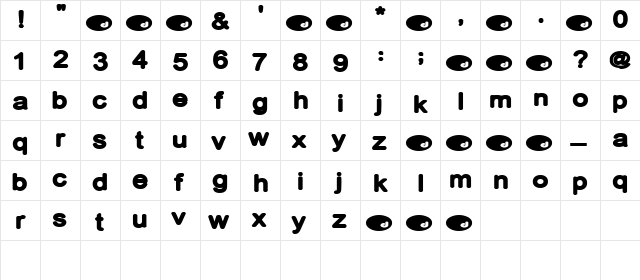
LittleDipper Regular
Design Context for LittleDipper Typeface
LittleDipper offers clean, dependable letterforms without strong stylistic allegiance, making it a practical choice for designers who need flexibility.
Pro Tip: Pair LittleDipper with a font of contrasting weight or personality to build a more expressive typographic hierarchy.